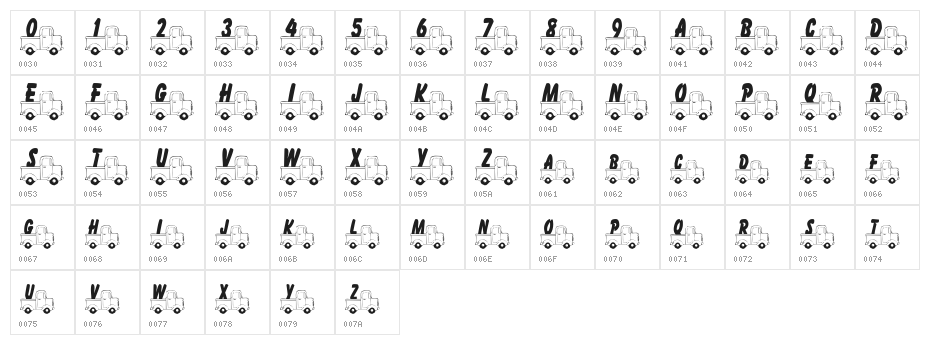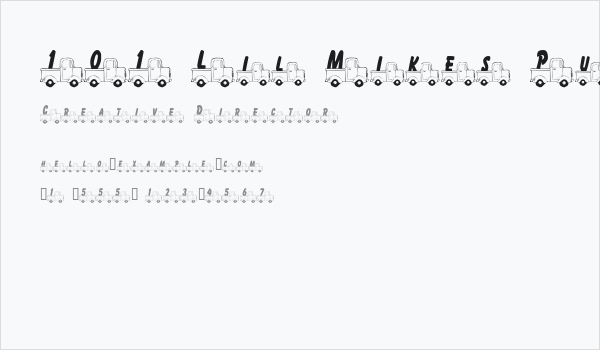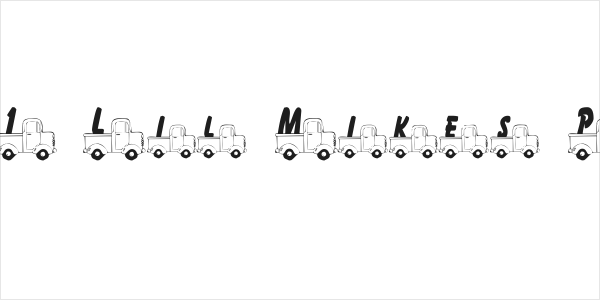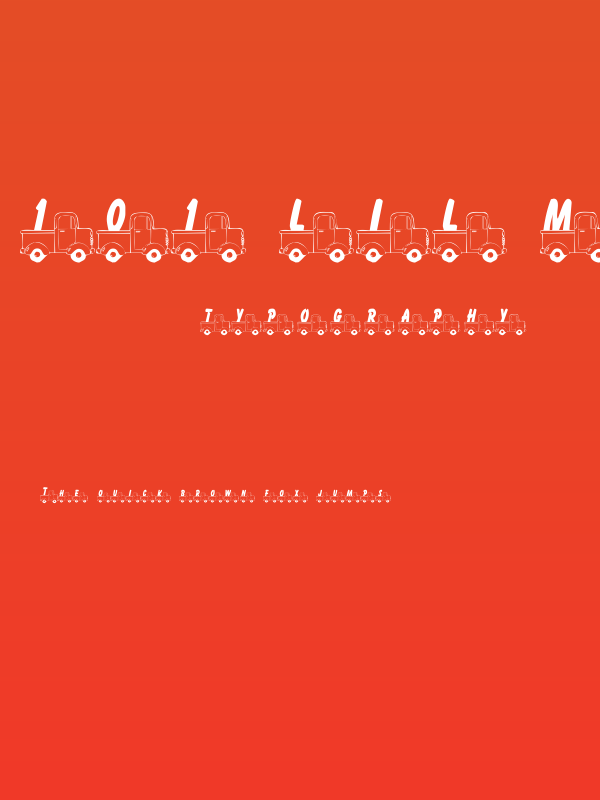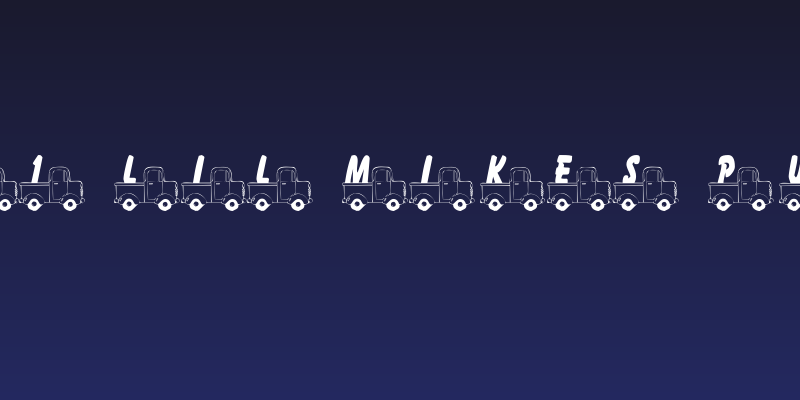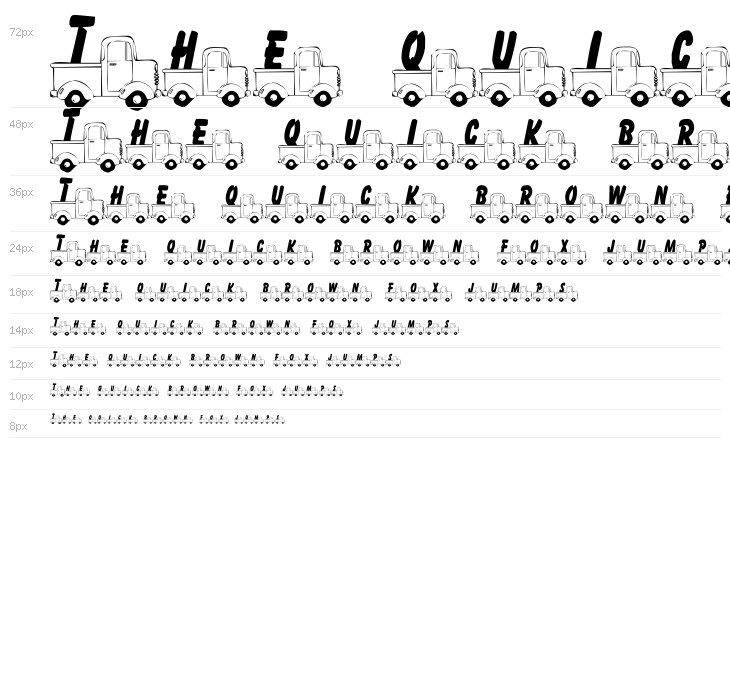
101 Lil Mikes Pup Font
| Stile generale | Playful, Whimsical |
| Caso d'uso | Headlines, Logos, Decorative text |
| Progetti proposti | Children's books, playful branding, educational materials, party invitations, and themed event signage. |